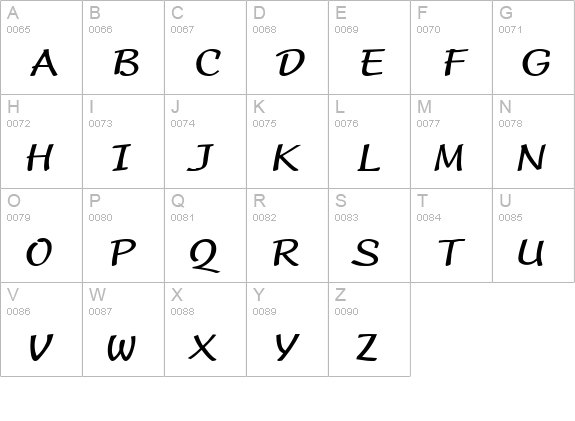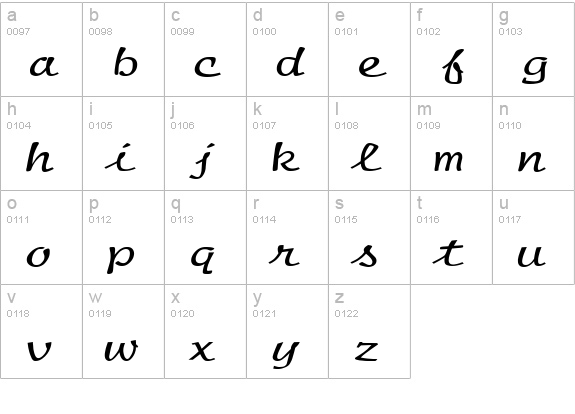
Manuscript Extended Normal is the standard, neutral, extended-width variant in the Manuscript typeface family \xE2\x80\x94 well suited to general body text, paragraphs, and standard typographic work.
Manuscript Extended Normal font is a beautifully crafted and versatile typeface that exudes elegance and sophistication. Its clean and contemporary design makes it suitable for a wide range of projects, from branding to editorial design. This font is the perfect choice for those seeking a balance between elegance and readability. Its extended letterforms and generous spacing ensure optimal legibility, even at smaller sizes. The subtle variations in stroke weight add a touch of personality to every character, making your text truly stand out. But what sets Manuscript Extended Normal font apart is that it is not only aesthetically pleasing but also freely available to download. Yes, you read that right! You can get your hands on this incredible font without spending a single penny. Simply head over to FontsMarket.com and grab this gem for yourself. Whether you're a designer, a writer, or anyone in need of a high-quality typeface, Manuscript Extended Normal font is the perfect choice. It effortlessly combines functionality with style, allowing you to elevate your designs without breaking the bank. So why wait? Start using Manuscript Extended Normal font today and let your creativity shine!